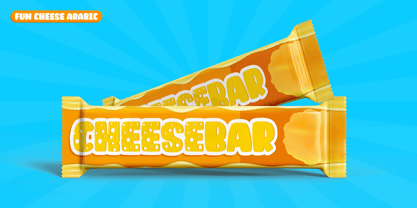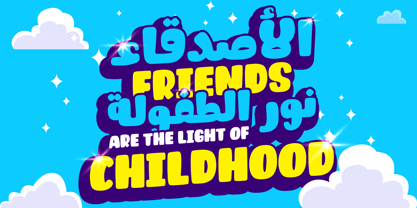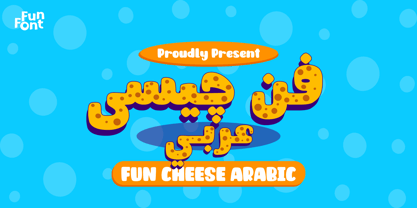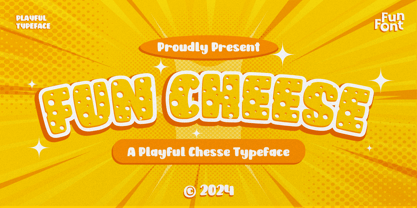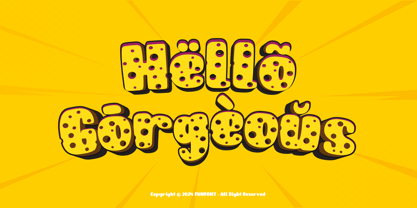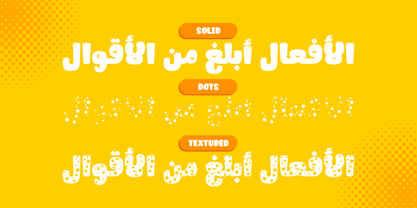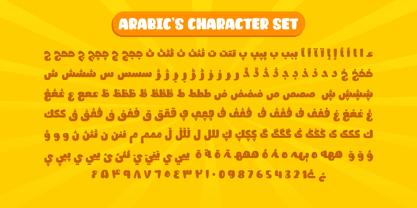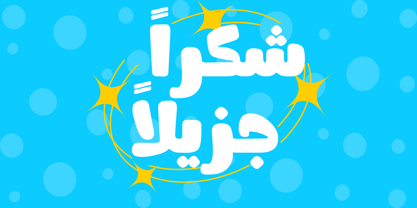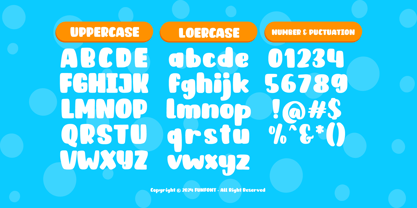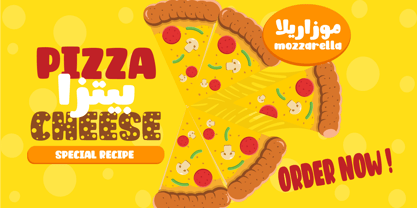
Fun Cheese Arabic
by FunFont
The Fun Cheese Arabic Font Family was designed by Nur Syamsi, Bustanul Arifin and published by FunFont. Fun Cheese Arabic contains 3 styles and family package options. More about this family
Fun Cheese Arabic is A layered and textured cheese font is a playful, whimsical typeface that mimics the look of cheese with irregular, hole-filled letters and a layered design. This font style is ideal for adding a sense of fun and creativity, often featuring a mix of soft edges and chunky forms with a tactile, dimensional quality. Its layered structure allows for color stacking and textured overlays. This is an upgraded version of Fun Cheese, with the addition of Arabic glyphs.
Designers: Nur Syamsi, Bustanul Arifin
Foundry: FunFont